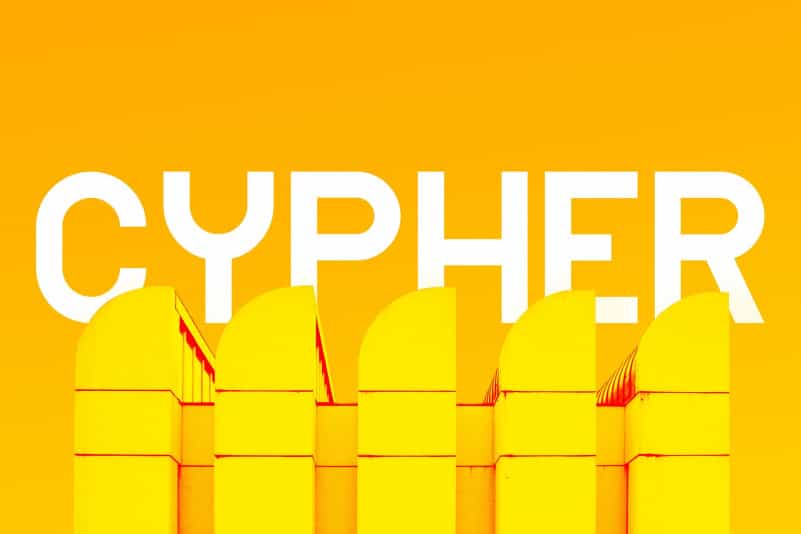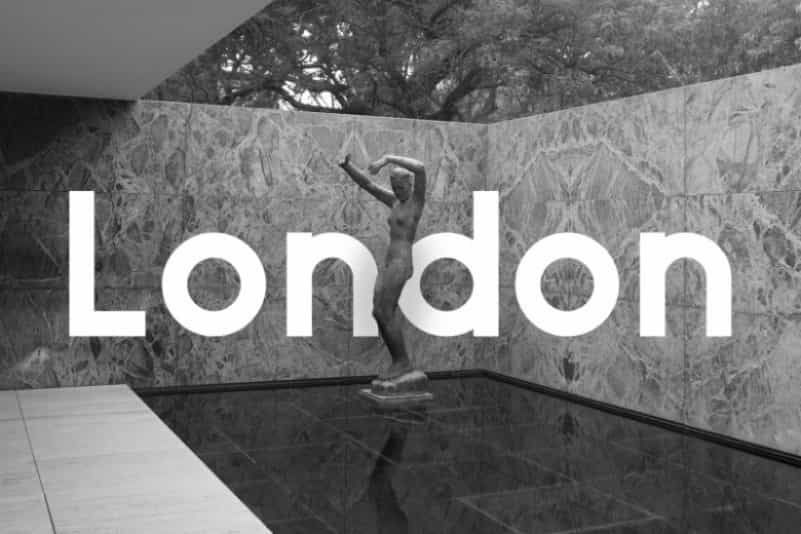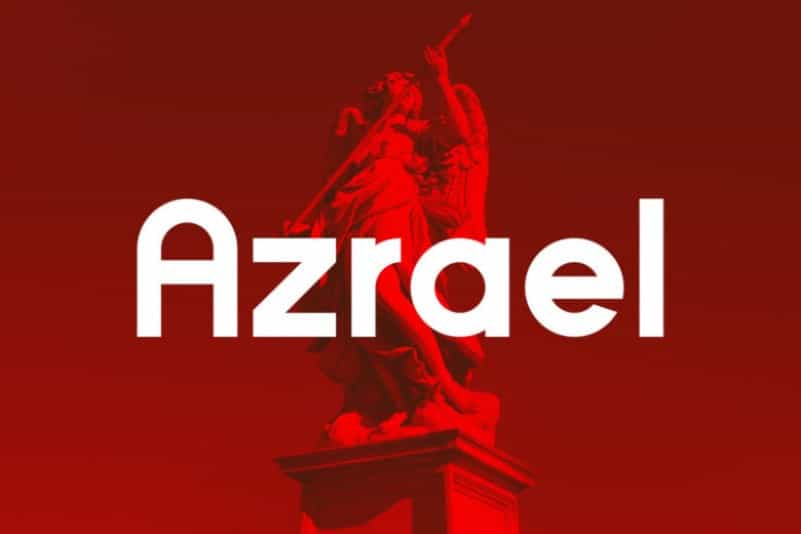
Cypher is a modern geometric typeface family of the new generations. This family is composed of four fonts. In the domain of typeface, Cypher is a typeface that was significantly into the direction of Bauhaus. Bauhaus movement. The font’s letterforms were kept rather simple with main concepts of Bauhaus in mind.